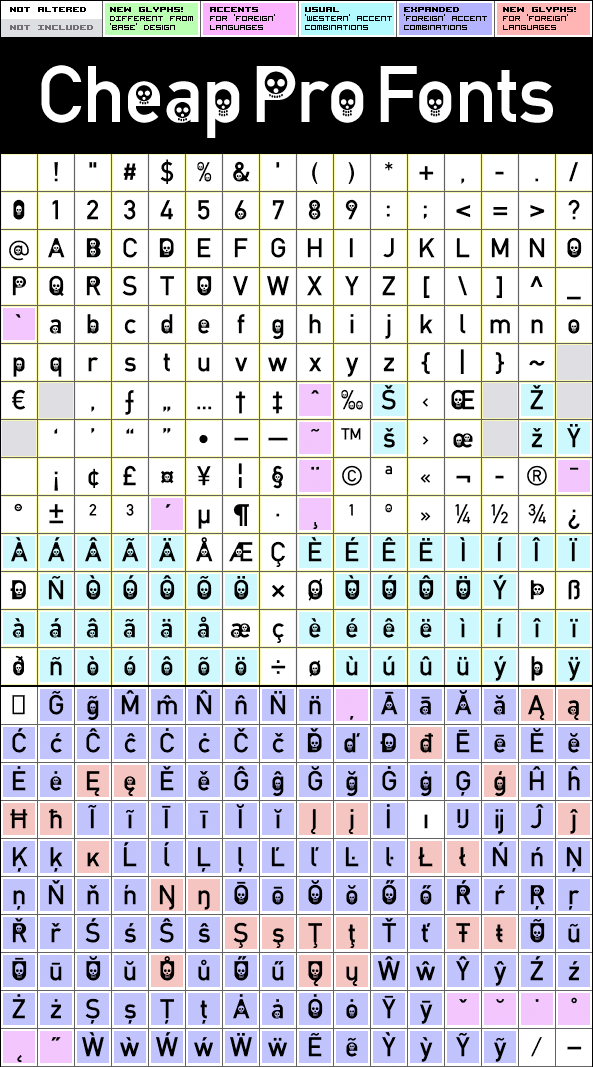
DINfun Pro Noggin
DINfun Pro Noggin by Roger S. Nelsson
In this variant of the classic DIN 1451 Mittelschrift all the counters have been replaced with stylized skull images. A simple but effectful transformation - perfect for Halloween and Día de los Muertos :)
DINfun Pro Noggin is a professionally reworked font that contains an extended character set for setting text in 65 languages requiring more than the basic A-Z!